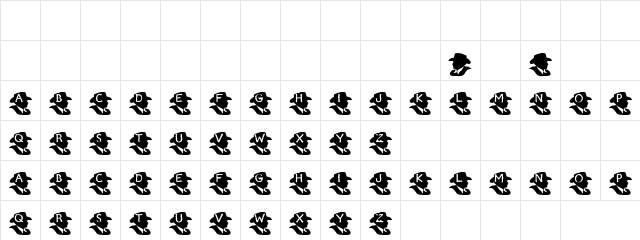
Dominic Regular
Design Context for Dominic Typeface
Dominic is a composed and adaptable typeface that performs quietly and consistently across a wide range of design contexts.